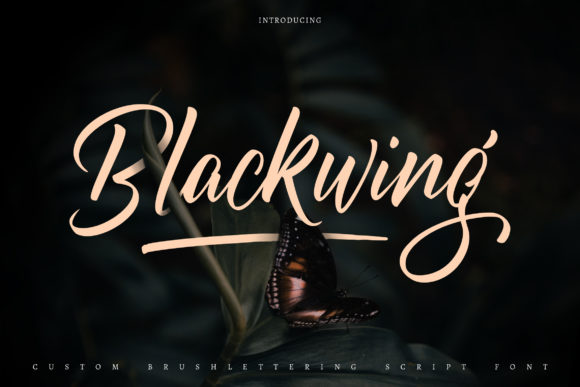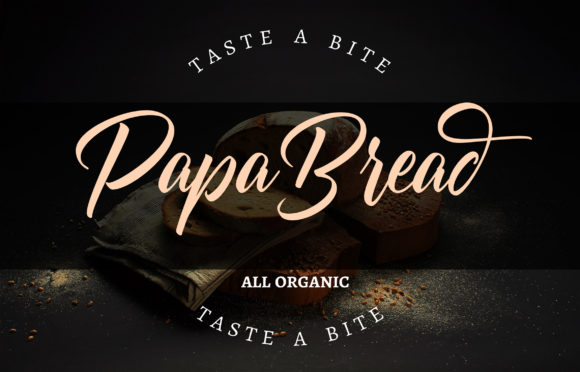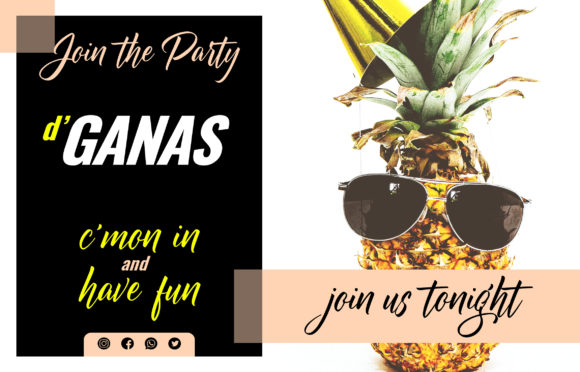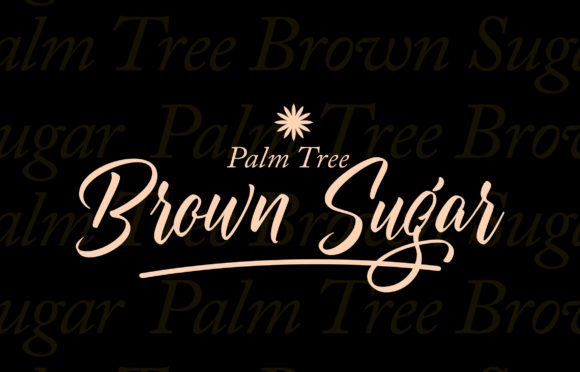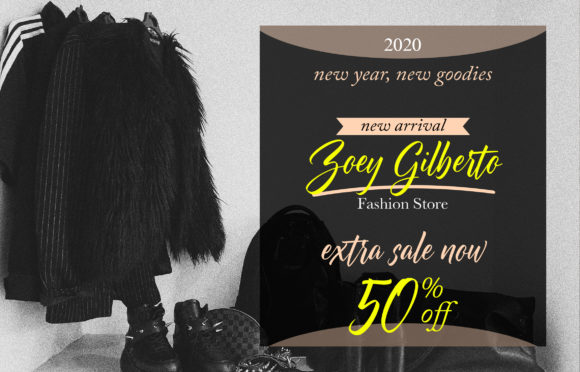
HomeScript FontsBlackwing Font Script Fonts Blackwing Font FacebookXPinterestWhatsApp Blackwing Font Poster 2 Blackwing Font Poster 3 Blackwing Font Poster 4 Blackwing Font Poster 5 About Blackwing Font Blackwing is a bold and powerful script that looks & feels charming. Get inspired by its unique charm! DOWNLOAD ON CREATIVE FABRICAThis font is sold and delivered by Creative Fabrica. Font Canyon may earn a commission if you buy through this link. People also explored Sagtima Brush Font Mommy Cupcakes Font Wave Font Autumn Happiness Font Ainsley Regina Font Monalisa Font Calla Lily Split Font Black Mini Card Font Peratgu Font 335 0 TagsBlackwing Font Previous articleAustria Memories FontNext articleThe Revolution Font LEAVE A REPLY Cancel reply Comment: Please enter your comment! Name:* Please enter your name here Email:* You have entered an incorrect email address! Please enter your email address here Website: Save my name, email, and website in this browser for the next time I comment. Personal Use Free Mike Ferrari 16017 Personal Use Free Read more about this font Planet Benson 2 Personal Use Free Read more about this font Aseline Personal Use Free Read more about this font Eva Personal Use Free Read more about this font BLOG How to Cut Any Font on Cricut: Convert a Font to SVG (Free) Turn any font into a clean SVG so it cuts crisp on Cricut - a quick 3-step workflow using a free font-to-SVG tool. Modern Sans-Serif Fonts That Brands Love in 2025 Top 7 Google Fonts Alternatives for Faster and Privacy-Friendly Web Design (2025) Best Fonts for YouTube Videos: Make Your Thumbnails Stand Out